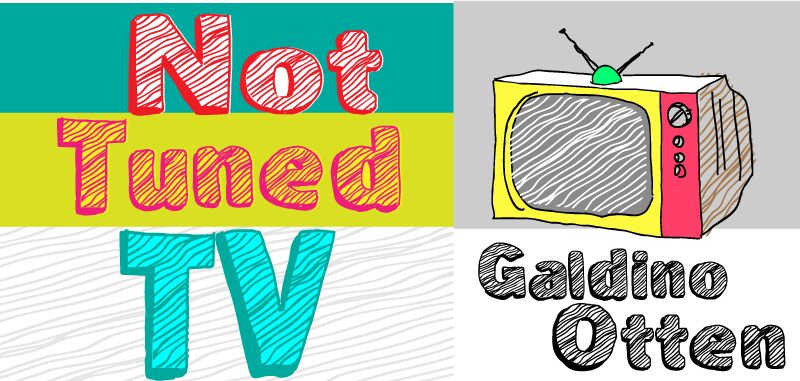
Not Tuned TV, designed by Galdino Otten in 2012, is a free eroded cartoon display font with broad, uneven letters and a restless hand-drawn finish. Inside each form, repeated wavy scratches resemble television static or rough woodgrain, breaking up the dense silhouettes with lively directional lines. The outer outlines carry a noticeable wobble.
It can turn lettering into a noisy broadcast-style graphic for music posters, comedy events, or youth merchandise, with the texture doing much of the illustrative work. On snack packaging and entertainment artwork, the striped marks can echo signal interference, hand-inked patterns, or energetic cartoon drawing rather than acting as ordinary surface decoration.